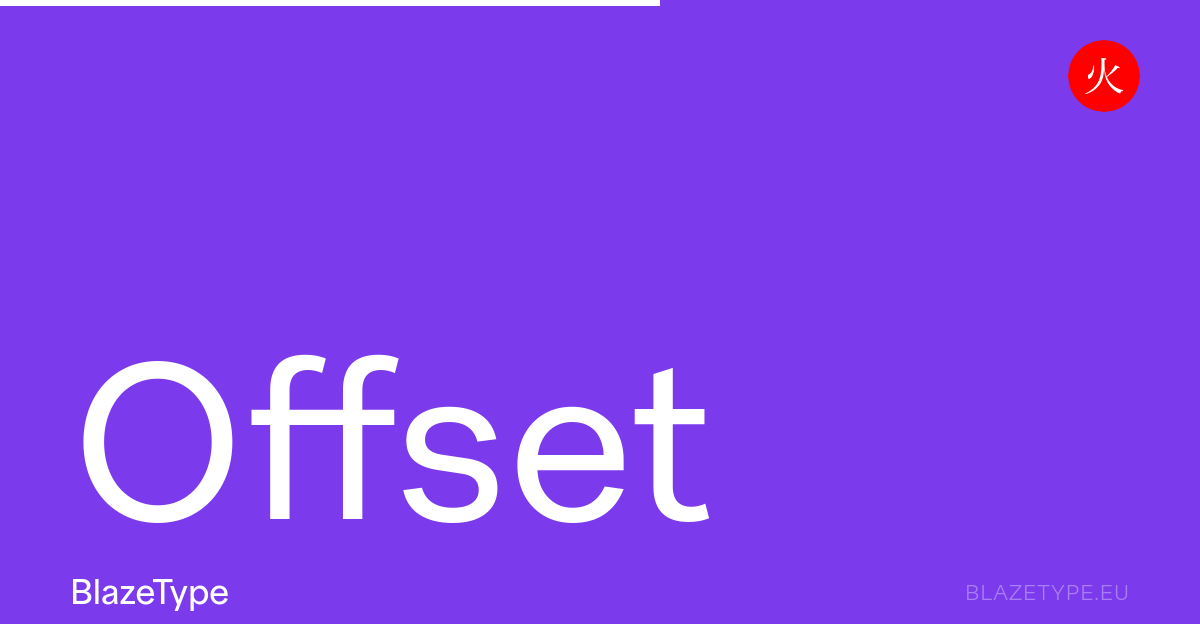
Offset specimen
Offset
Blaze Type
Offset is a variable sans-serif typeface with clean modern lines. Versatile font family for editorial, web, and branding design projects. Free trial, licenses from 40€.